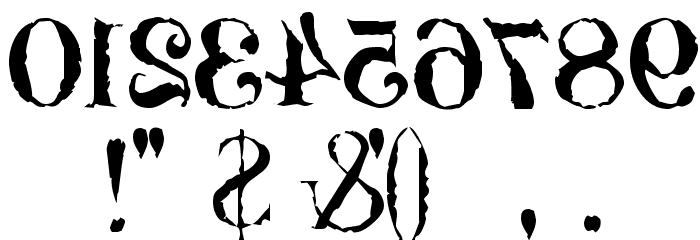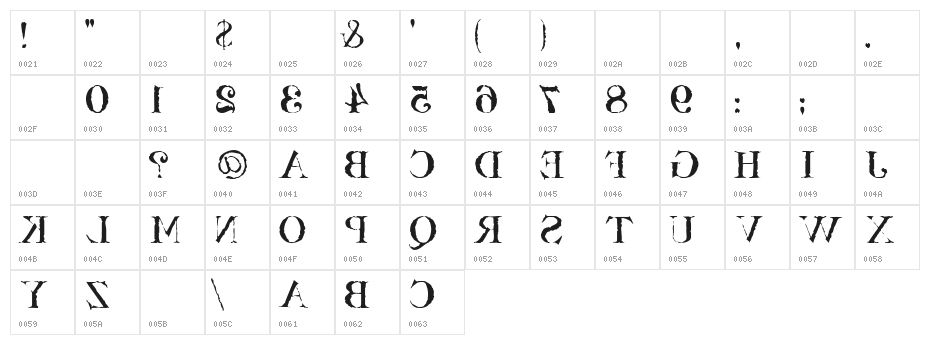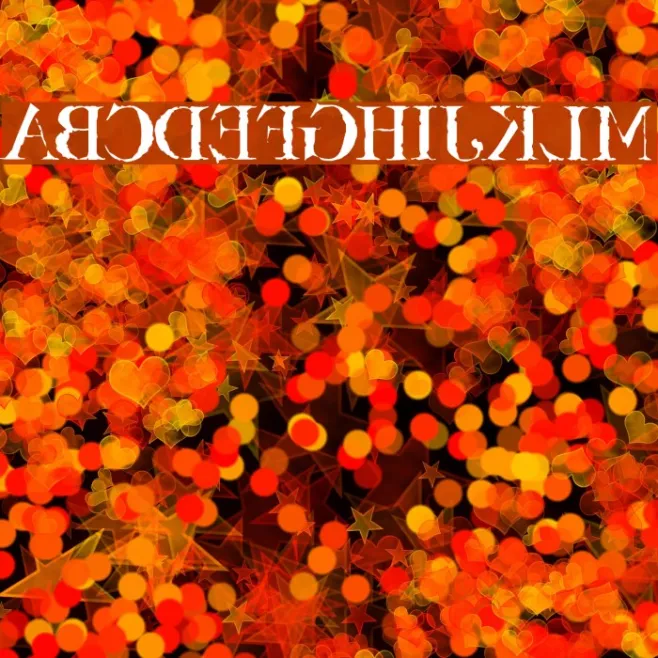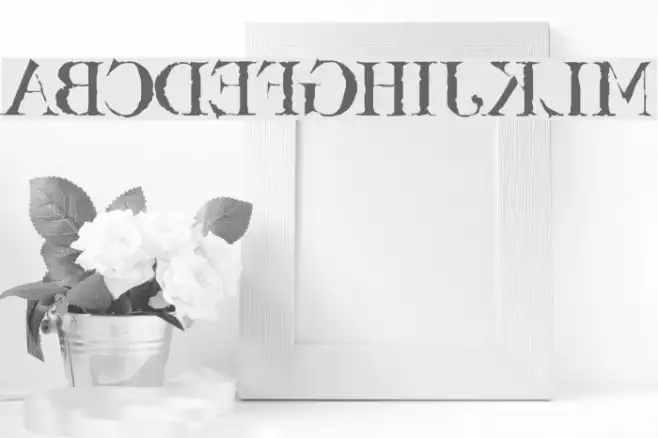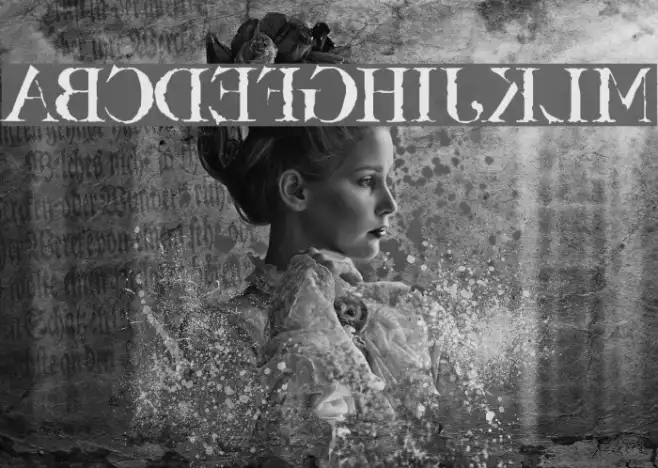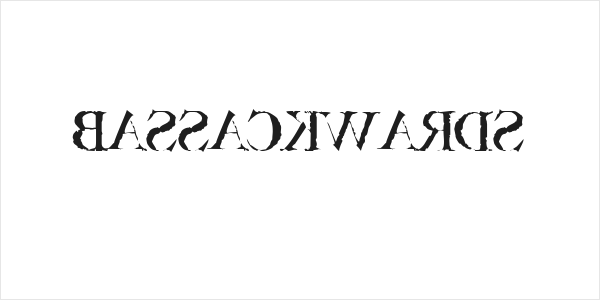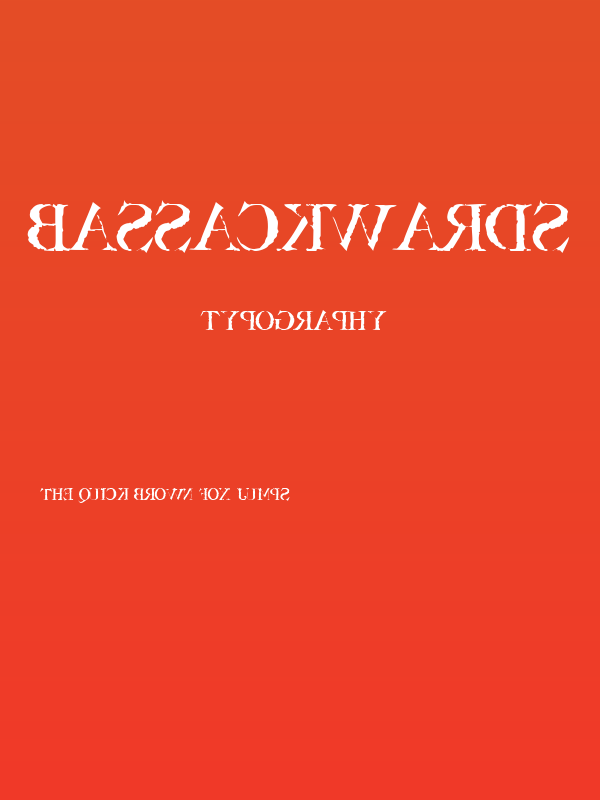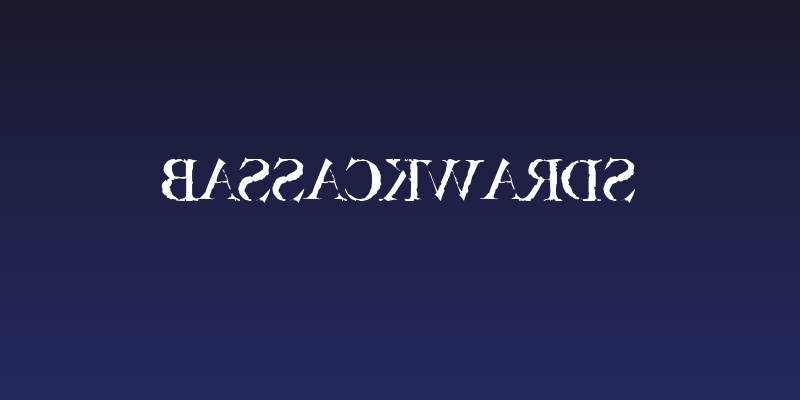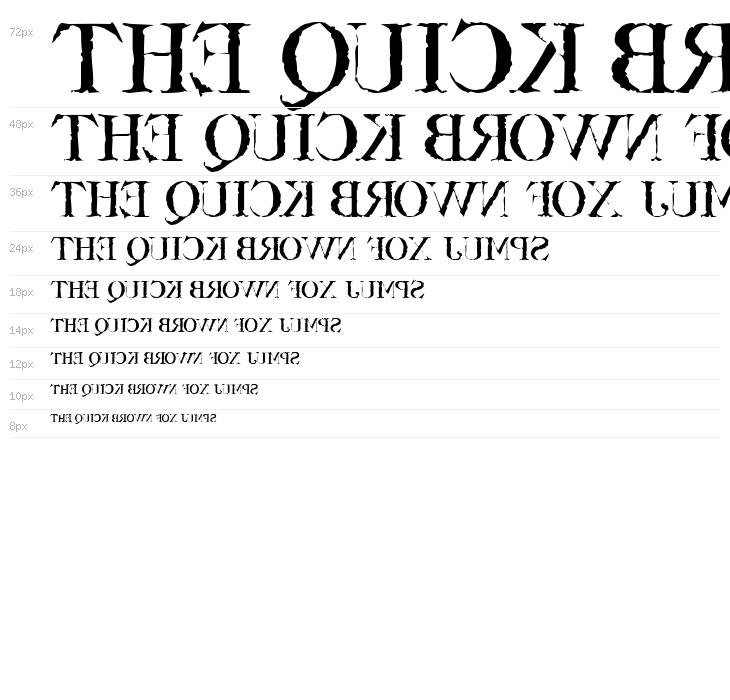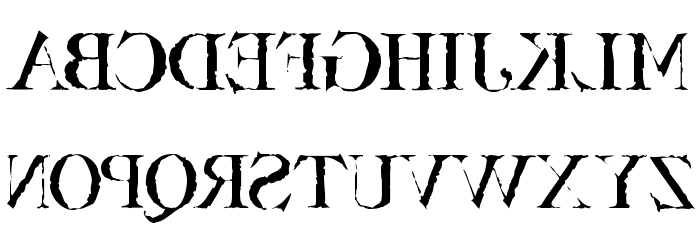
Bassackwards Font
Bassackwards Description
This font features a highly decorative and distressed style, characterized by its unique, jagged edges and irregular shapes. The letters appear as if they have been eroded or worn over time, giving them a rugged and vintage feel. The uppercase and lowercase letters maintain a consistent design, with each character exhibiting a distinctive, artistic flair. Numbers and special characters follow the same aesthetic, ensuring a cohesive look across all glyphs. This font's bold and striking appearance makes it ideal for projects that require a strong visual impact.
| Overall Style | Vintage, Decorative |
| Proposed Projects | Ideal for posters, album covers, and branding that require a bold, artistic touch. |